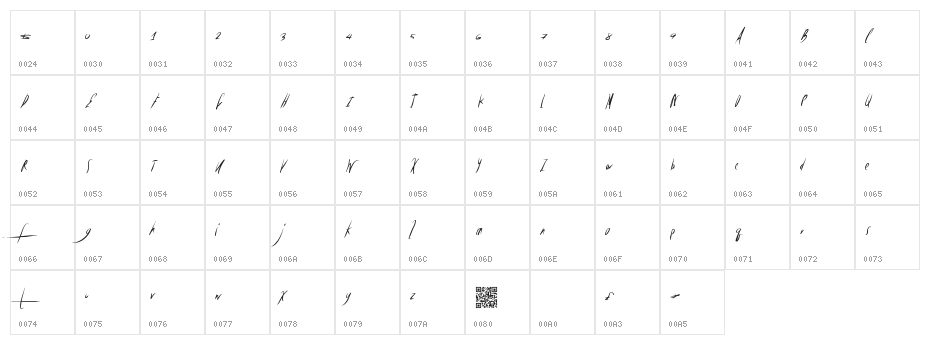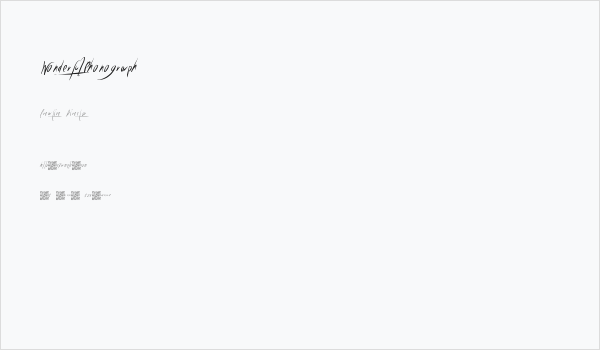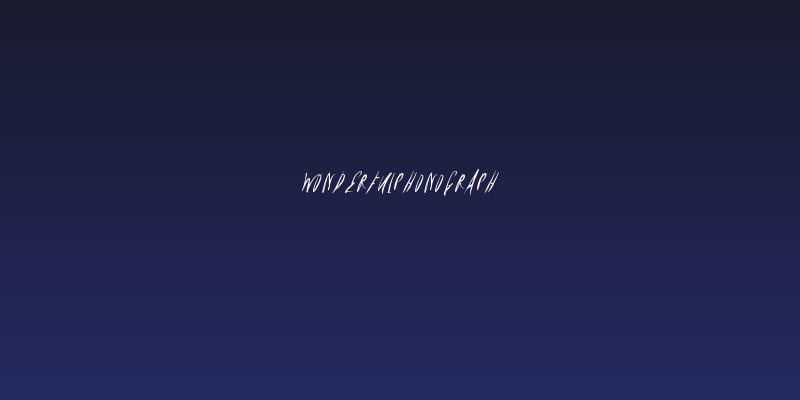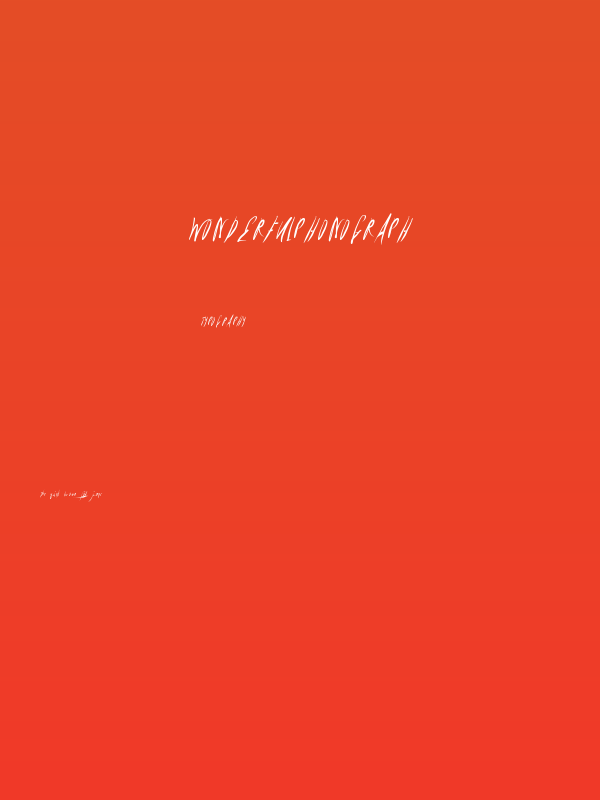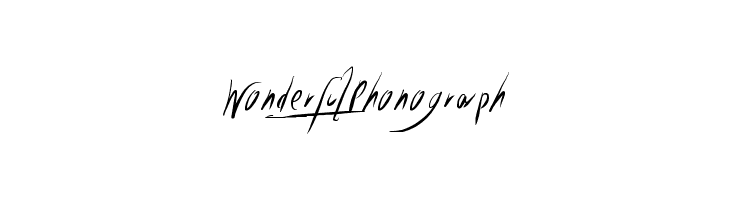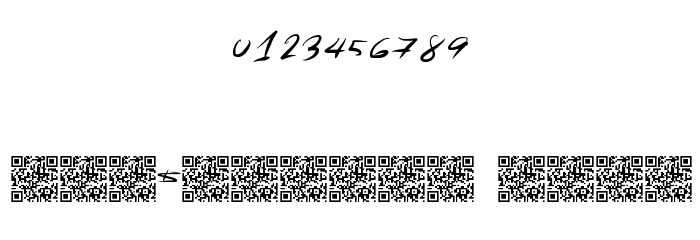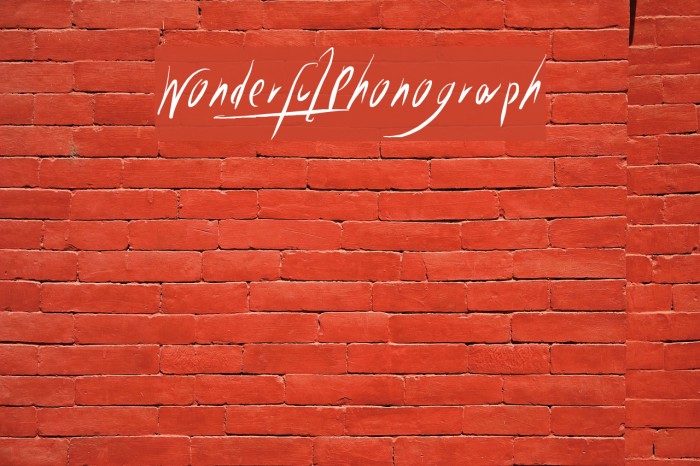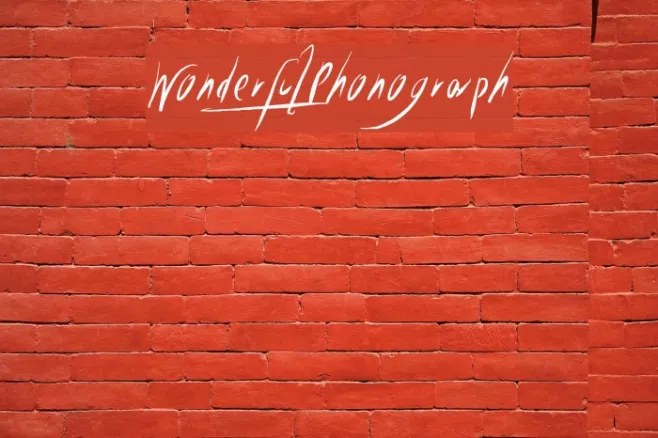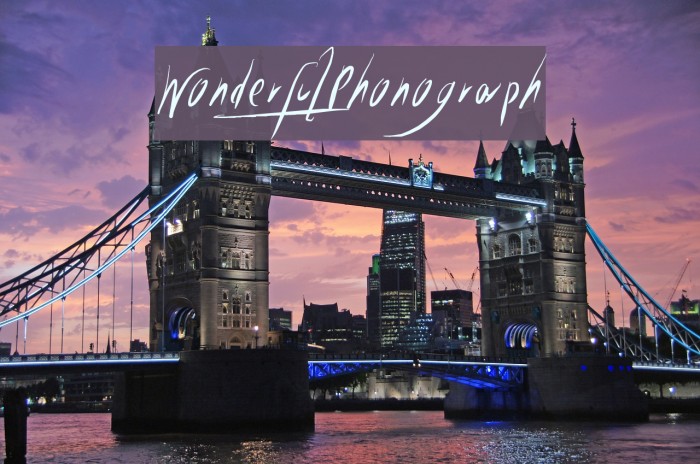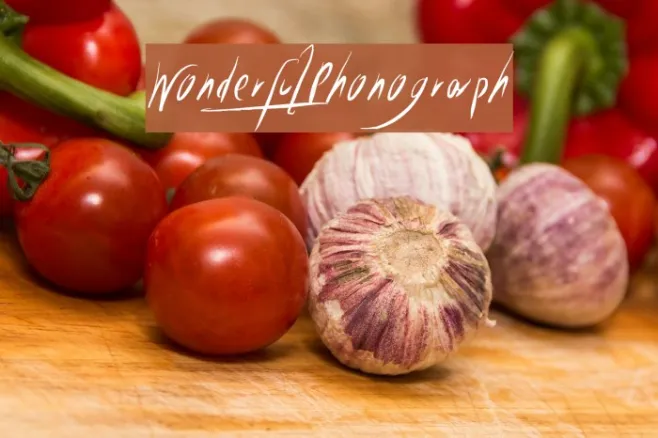
WonderfulPhonograph Font
WonderfulPhonograph Description
This font exhibits a dynamic and expressive handwritten style, characterized by its elongated and slightly slanted letterforms. The strokes are varied in thickness, giving it a lively and energetic appearance. The uppercase letters are particularly tall and narrow, while the lowercase letters maintain a consistent flow, enhancing readability. The numbers and special characters follow the same stylistic cues, ensuring uniformity across all glyphs. This font's unique personality makes it suitable for creative and artistic projects where a personal touch is desired.
| Width | Condensed |
| Use Case | Logos, Headlines, Artistic projects |
| Proposed Projects | Ideal for invitations, greeting cards, artistic posters, and branding materials that require a personal and creative flair. |